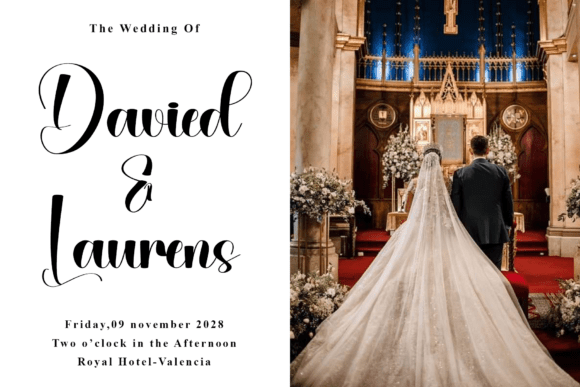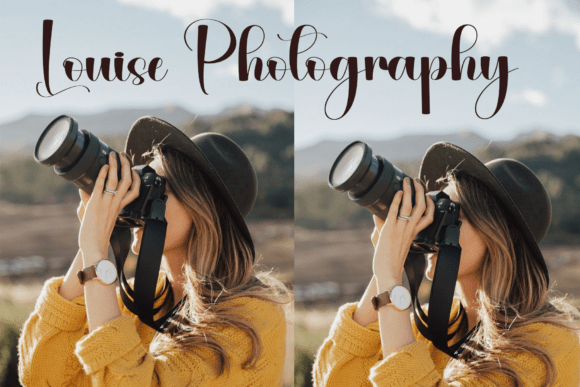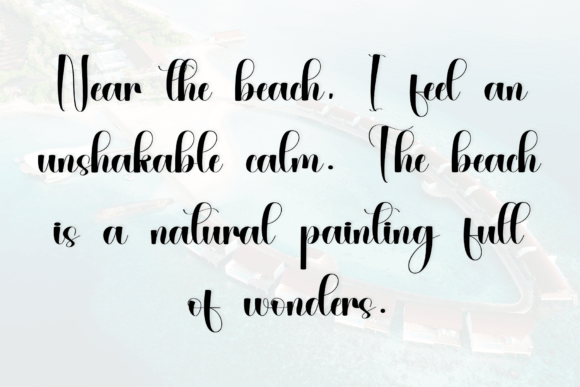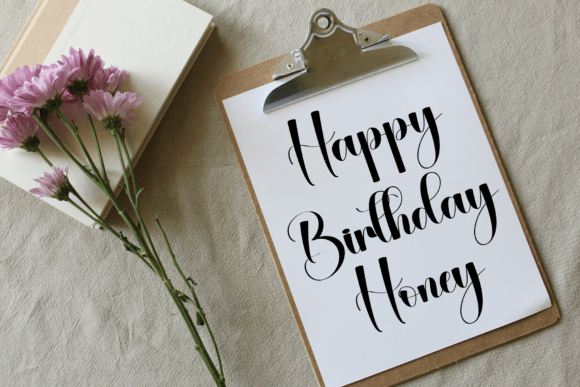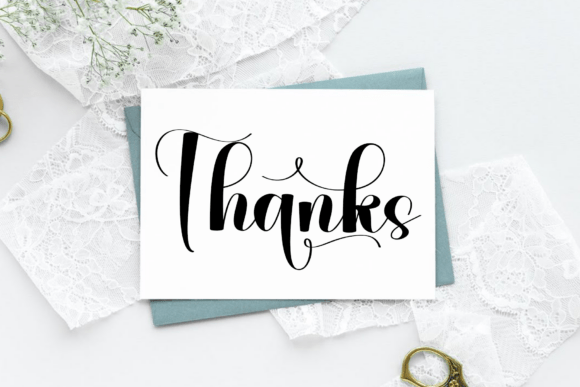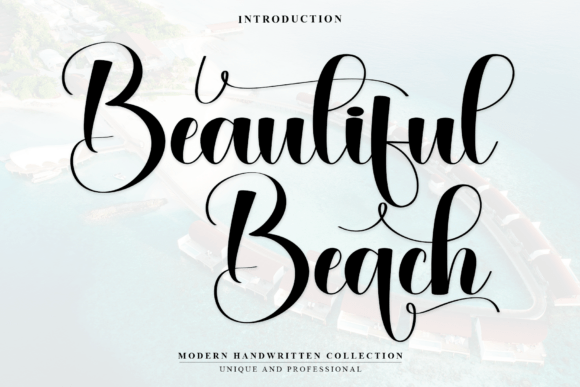
Introducing Beautiful Beach: The Perfect Handwritten Font for Your Creative Projects
Are you looking for a font that can add a touch of elegance and personality to your designs? Look no further than Beautiful Beach, a stunning handwritten font that embodies the natural, flowing style of a perfect beach vacation. With its elegant cursive writing, Beautiful Beach is ideal for crafters, designers, and anyone looking to create beautiful and eye-catching content.
Handwritten fonts have a unique charm that can instantly elevate your designs and make them stand out. They offer a level of personality and character that is hard to replicate with traditional fonts. Beautiful Beach is a prime example of a handwritten font that can add a touch of sophistication and whimsy to your projects.
What Makes Beautiful Beach Special?
Beautiful Beach is more than just a font – it’s an experience. Its natural, flowing style is reminiscent of a relaxing day at the beach, with the sun shining and the waves gently lapping at the shore. The font’s elegant cursive writing is perfect for creating beautiful and eye-catching content, from invitations and logos to social media posts and more.
Key Features of Beautiful Beach
• Natural, flowing style: Beautiful Beach has a unique, organic feel that makes it perfect for creating content that feels personal and authentic.
• Elegant cursive writing: The font’s elegant cursive writing is perfect for adding a touch of sophistication and whimsy to your designs.
• Perfect for creative projects: Beautiful Beach is ideal for crafters, designers, and anyone looking to create beautiful and eye-catching content.
How to Use Beautiful Beach in Your Designs
Beautiful Beach is a versatile font that can be used in a variety of creative projects. Here are a few ideas to get you started:
• Invitations: Use Beautiful Beach to create beautiful and elegant invitations for weddings, parties, and other special events.
• Logos: The font’s elegant cursive writing makes it perfect for creating unique and eye-catching logos for businesses and brands.
• Social media posts: Add a touch of personality and whimsy to your social media posts with Beautiful Beach.
• Stationery: Use the font to create beautiful and elegant stationery, including letterheads, notecards, and more.
Beautiful Beach is a stunning handwritten font that can add a touch of elegance and personality to your designs. With its natural, flowing style and elegant cursive writing, it’s perfect for crafters, designers, and anyone looking to create beautiful and eye-catching content. Whether you’re creating invitations, logos, social media posts, or more, Beautiful Beach is the perfect choice.